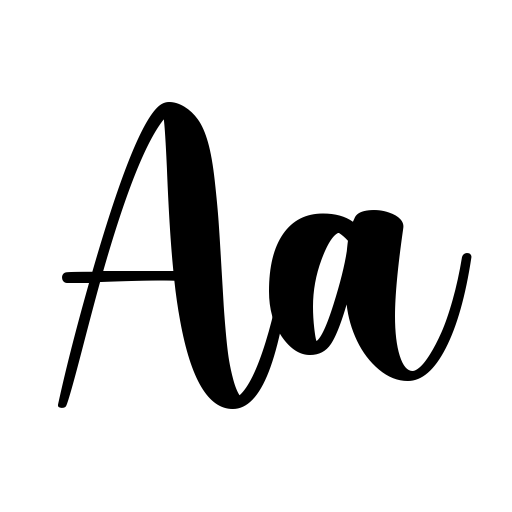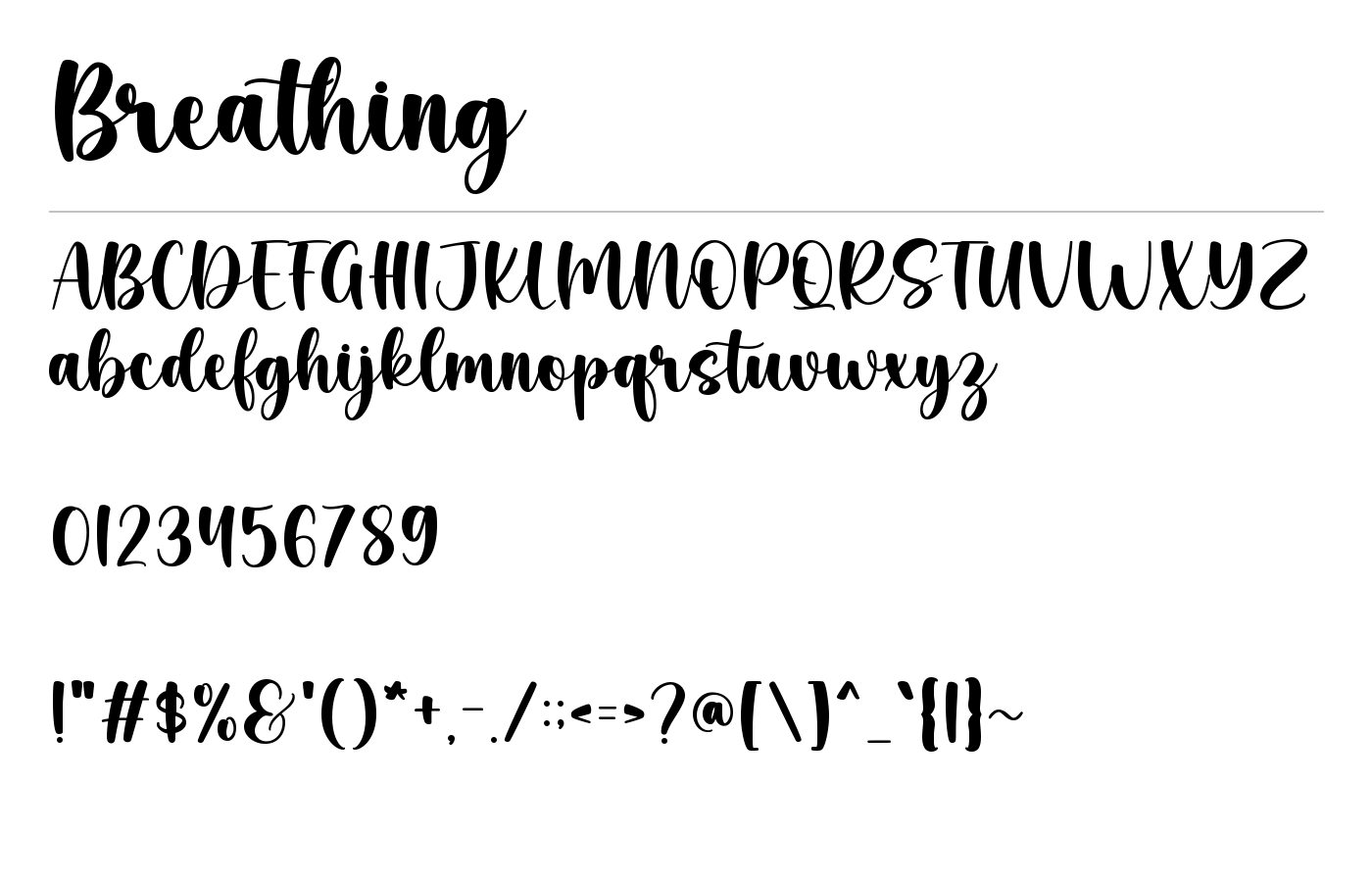
Breathing Font is a lively and elegant script typeface with a bold weight and smooth, flowing strokes that mimic natural handwriting. Its stylish, rounded letterforms and playful swashes give it a friendly and approachable feel, making it perfect for branding, invitations, and creative projects that seek a personal, warm touch. This font works beautifully in display settings where a charming and modern handwritten look is desired.
Breathing Font
About Breathing Font